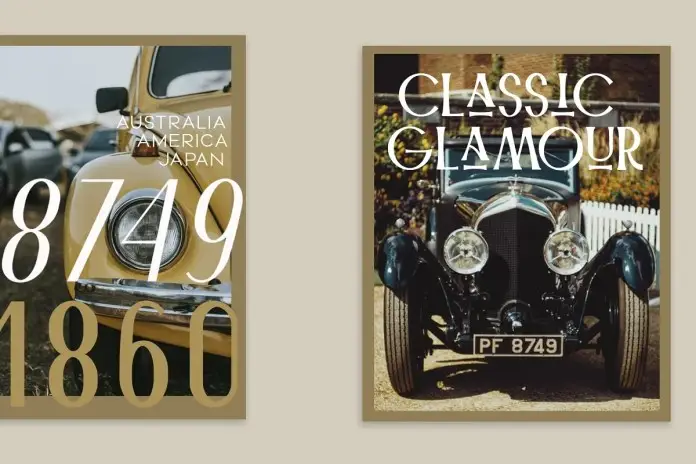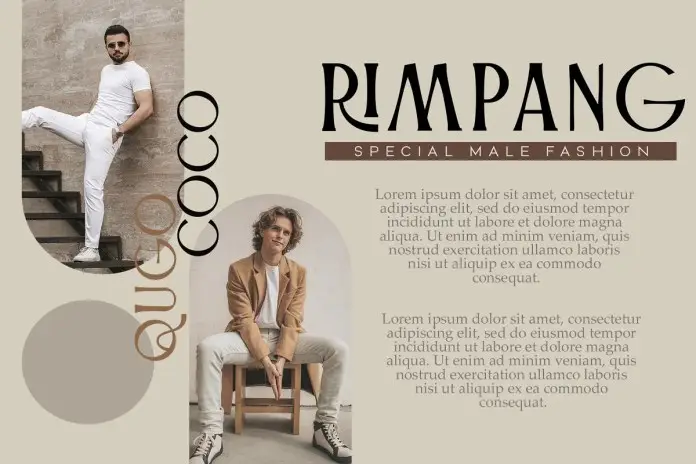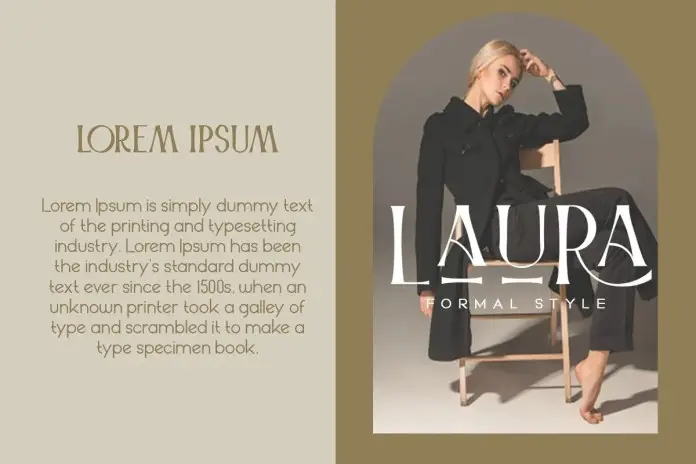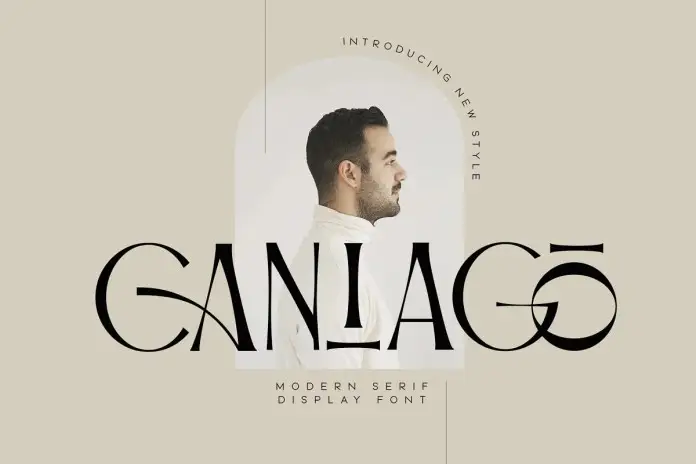
Caniago Serif Font
The Caniago Serif Font is a beautifully crafted typeface that combines elegance with readability, making it an excellent choice for various design projects. With its classic serif style, this font adds a touch of sophistication to any text.
• Stylish serif design
This font is perfect for branding, logos, print materials, and web design. Its elegant style makes it suitable for invitations, business cards, and editorial layouts.